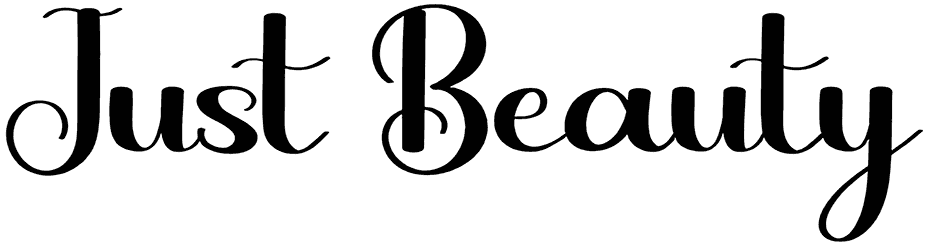
Just Beauty Font
What you need to adorn your modern design and convey a classic feeling to visitors is a casual, romantic font. Just Beauty font is here to give such a face to your words and make them beautiful. You can have a Valentine’s Day flyer or different creative layouts with this curvy font and show off your specific taste.
Just Beauty is a flowing and graceful script font. Fall for its ravishing style and use it to create gorgeous wedding invitations, beautiful stationary art, eye-catching social media posts, and much more!